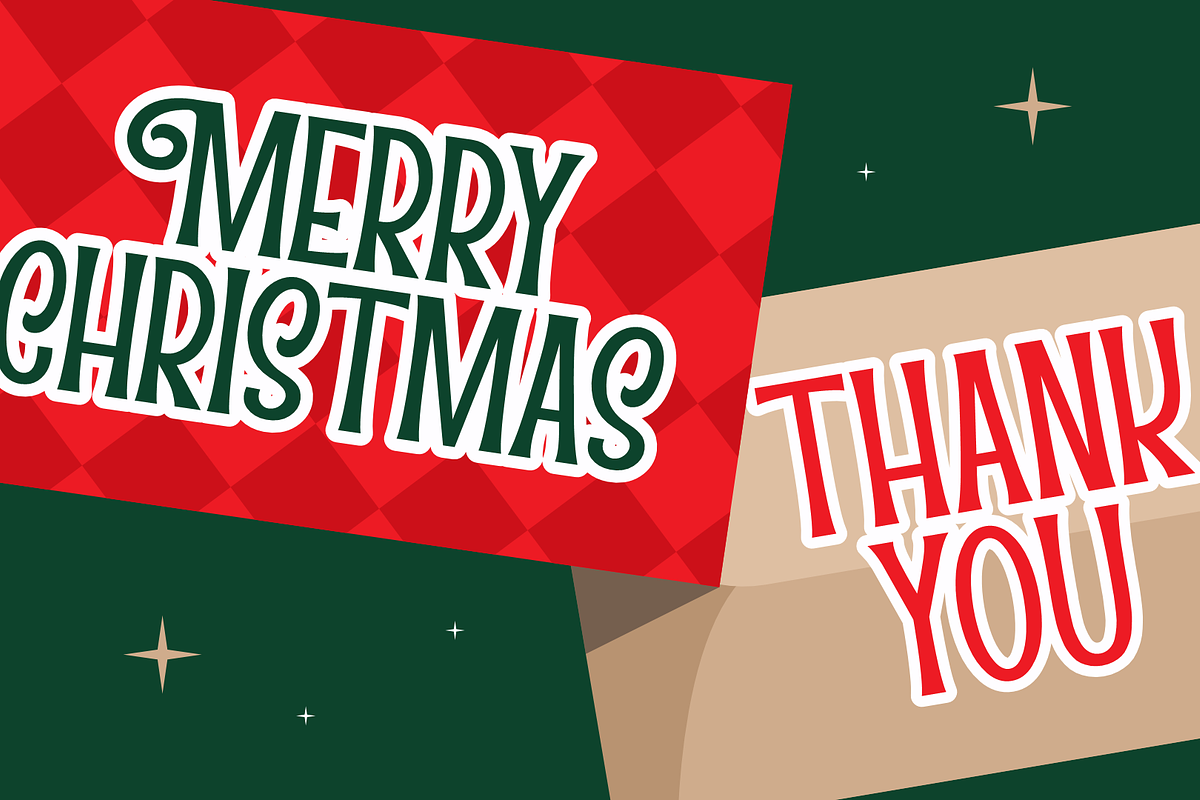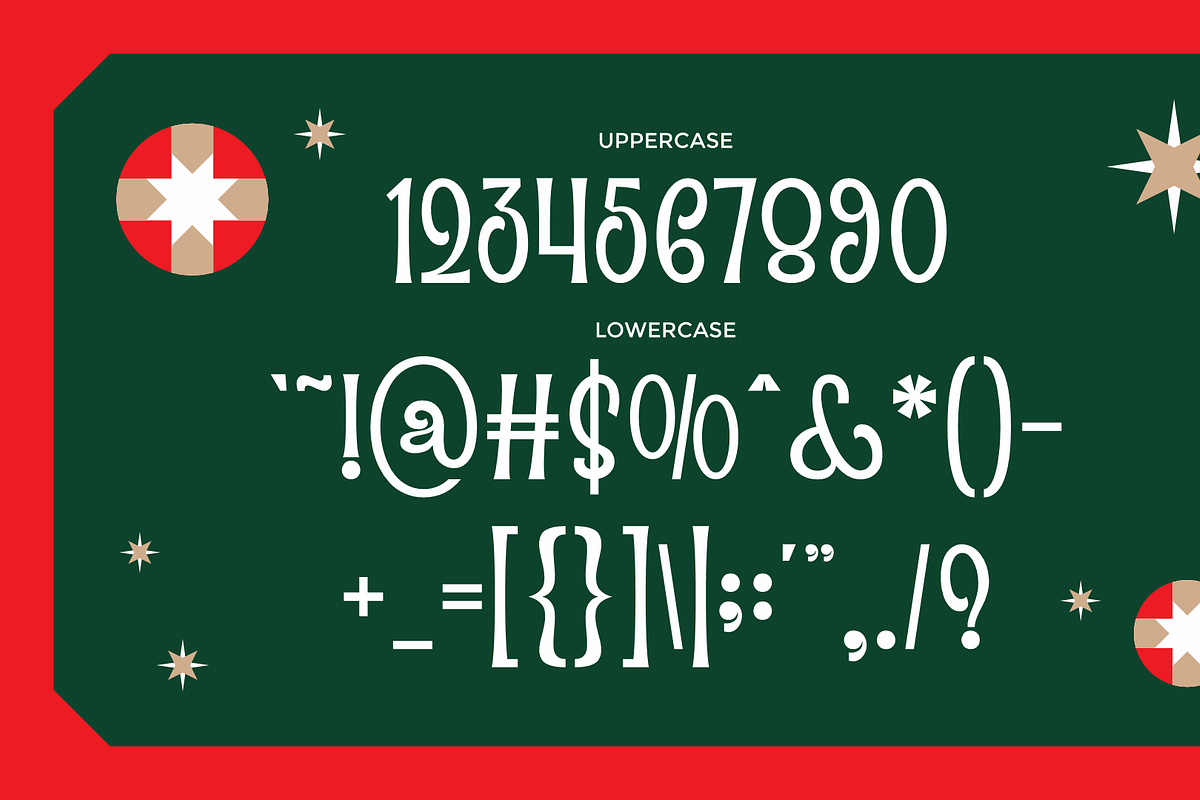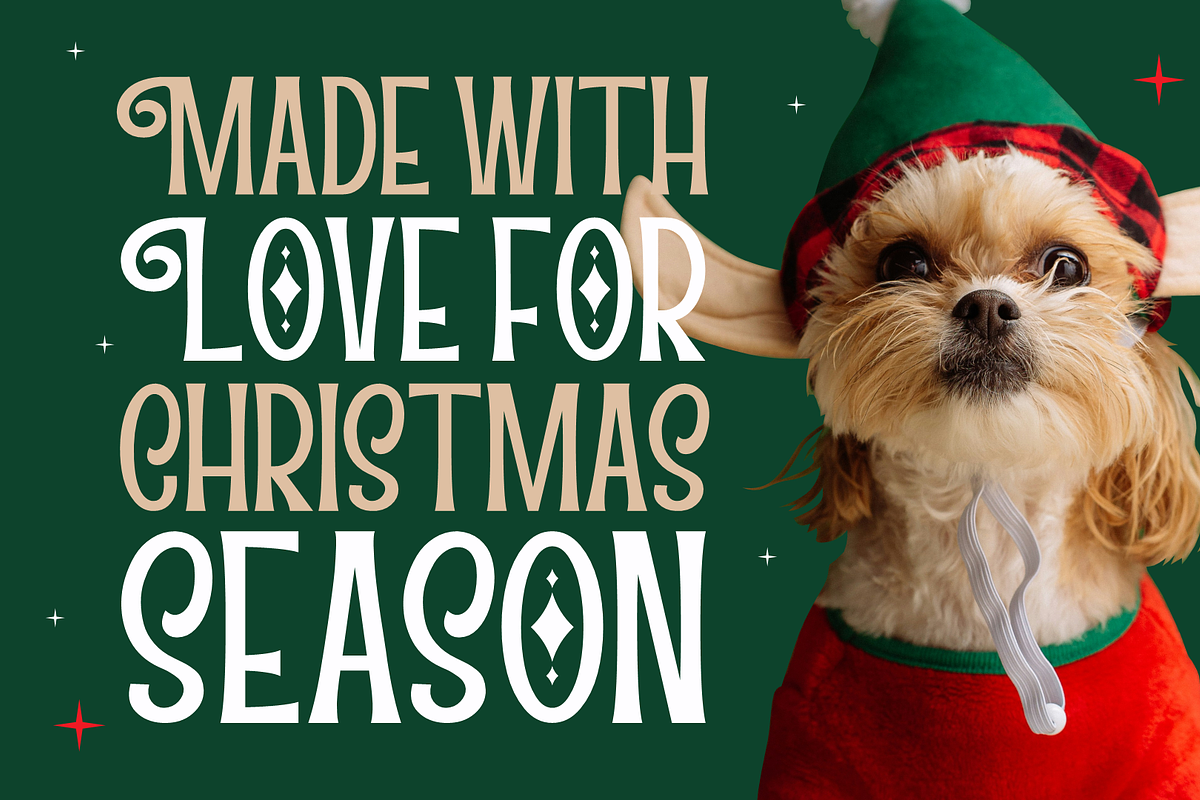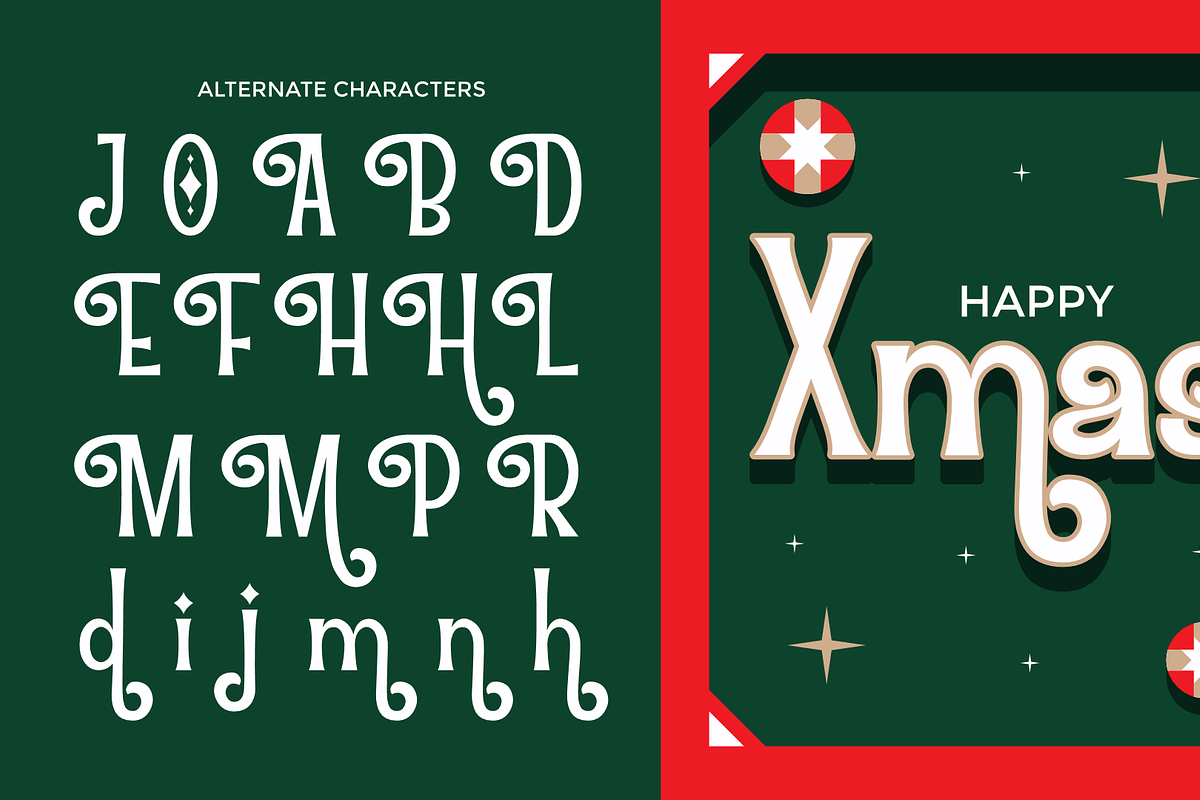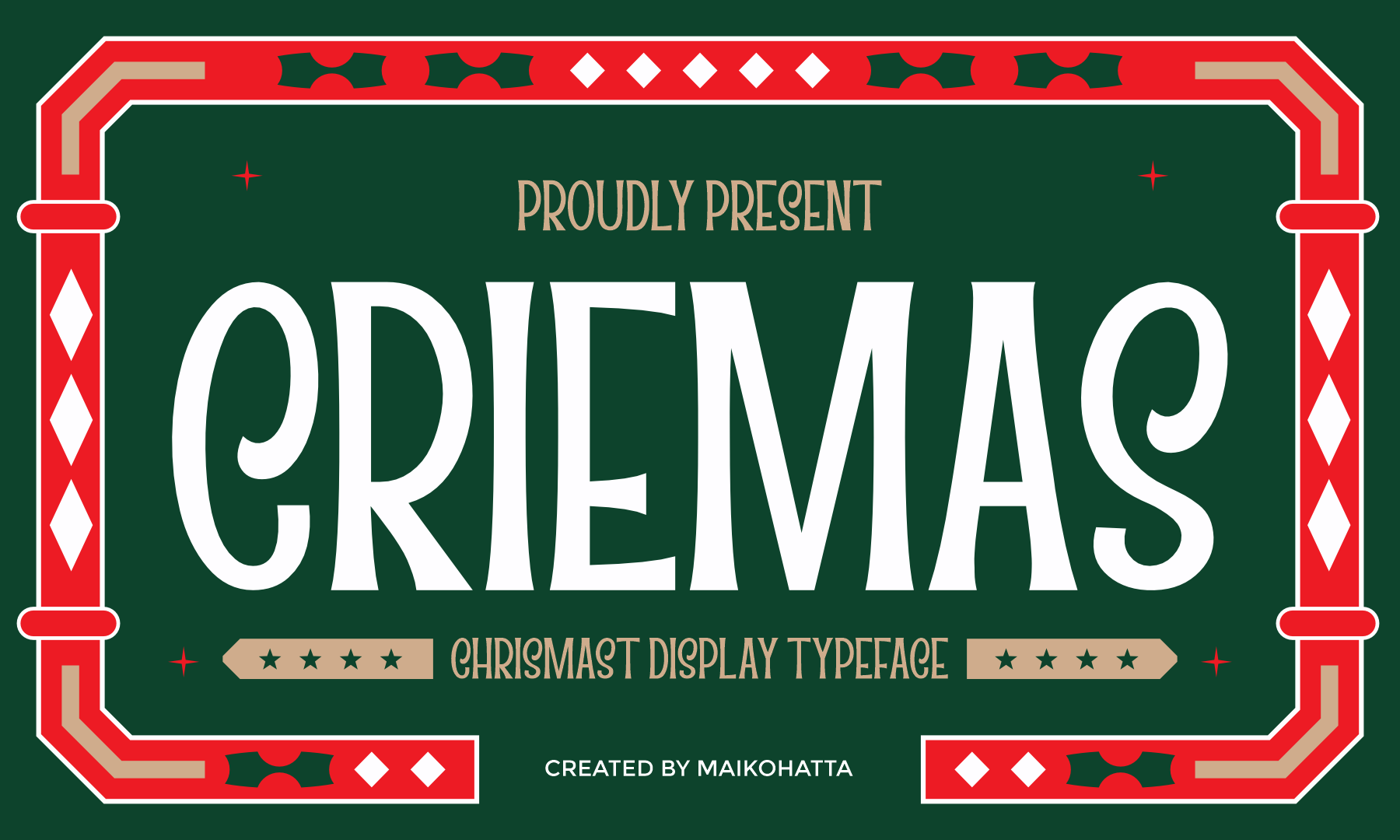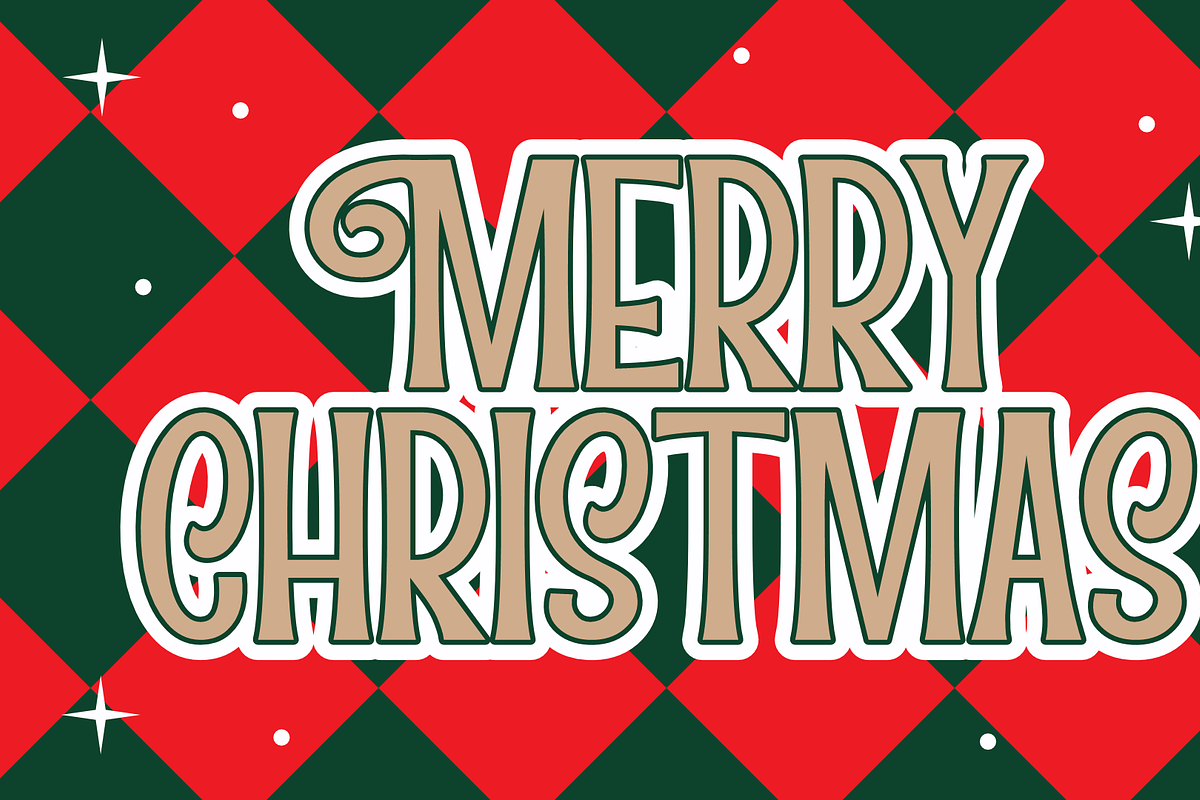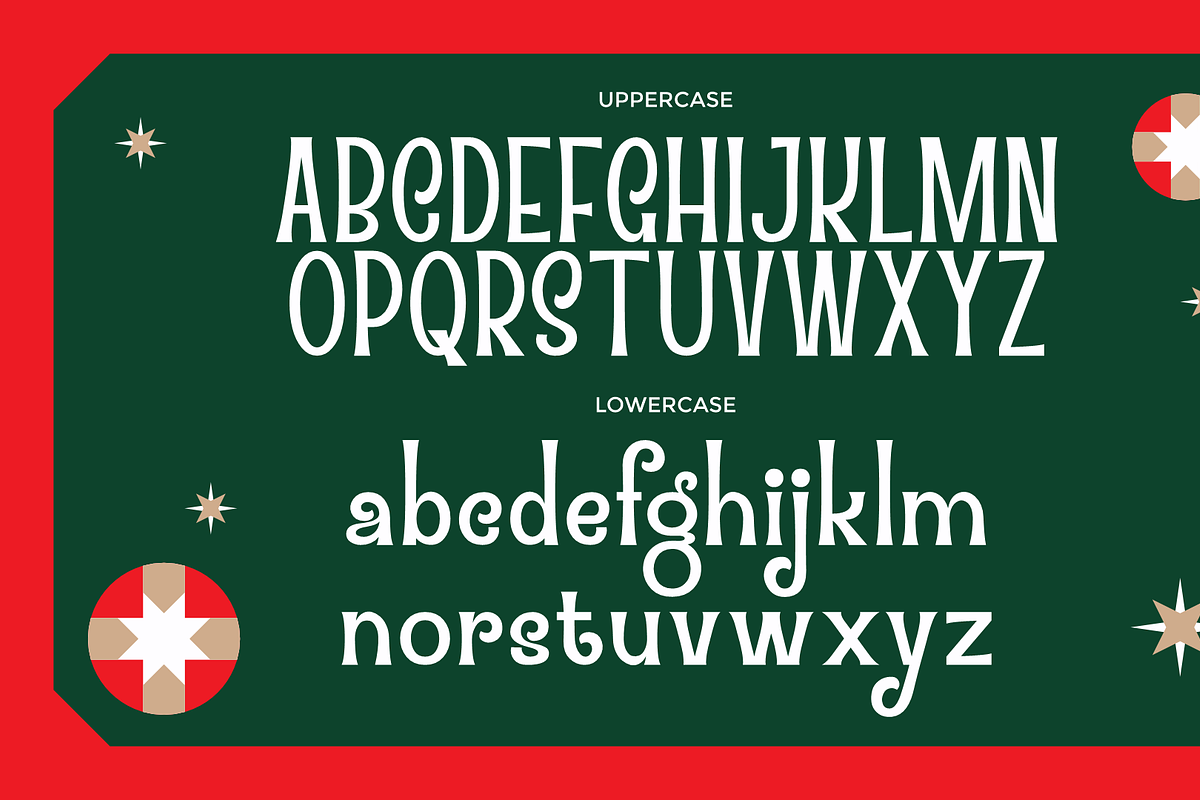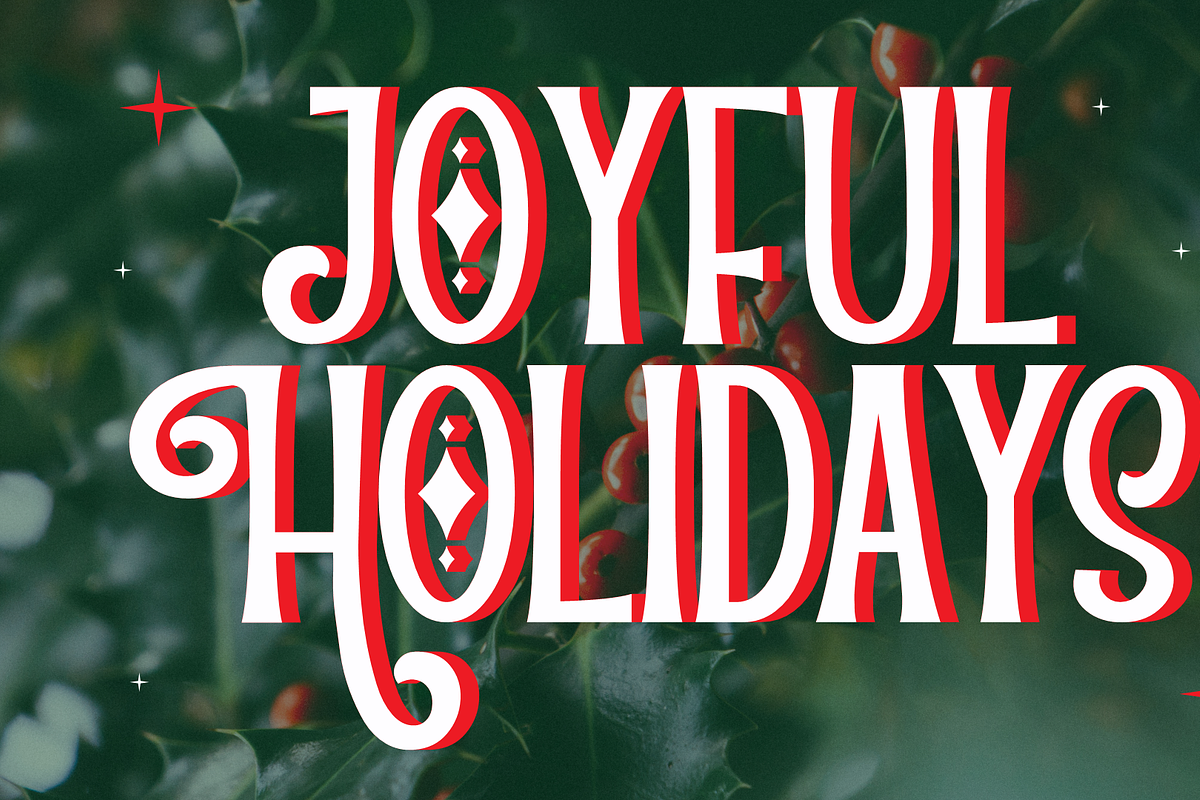
Criemas - Christmas Display Typeface
Introducing our new product Criemas - Christmas Display Typeface Criemas is a festive Christmas display typeface featuring tall, playful letterforms with a warm retro charm. Its stretched curves, soft edges, and unique quirky proportions create a joyful holiday personality perfect for seasonal branding. The decorative shapes and classic Christmas color vibes make it ideal for greeting cards, posters, packaging, social media designs, and any project that needs a cheerful winter mood. Criemas brings together vintage holiday aesthetics and modern display style—bold, fun, and instantly eye-catching.